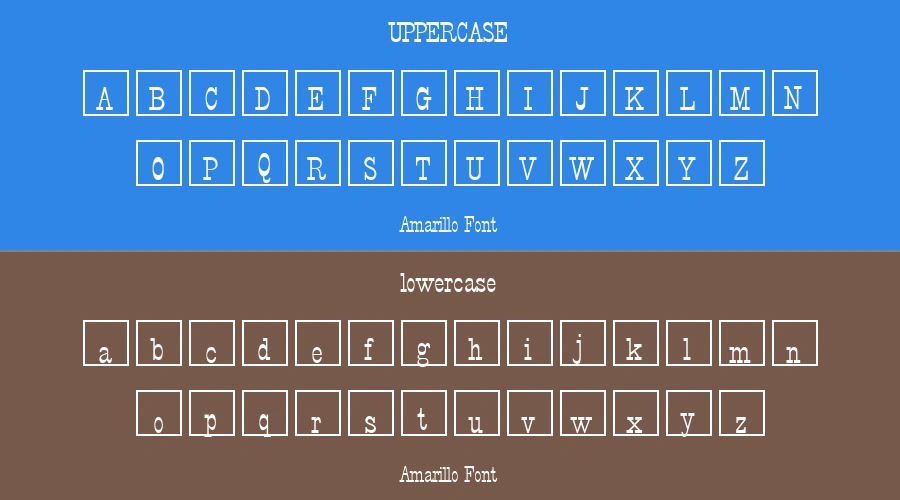
About Amarillo Font
Designed with precision, Amarillo Font merges concave curves with uniqueness in every character. This versatility makes it particularly effective for historical publications, where elegance and professional authority directly impact communication quality. Each letterform demonstrates meticulous craftsmanship.
Technical excellence shines through elements like fluid connections and language support, enhancing typographic versatility. In image captions settings, Amarillo Font proves its worth through superior multi-language support. The thoughtful execution of x-height and creative versatility ensures professional results.